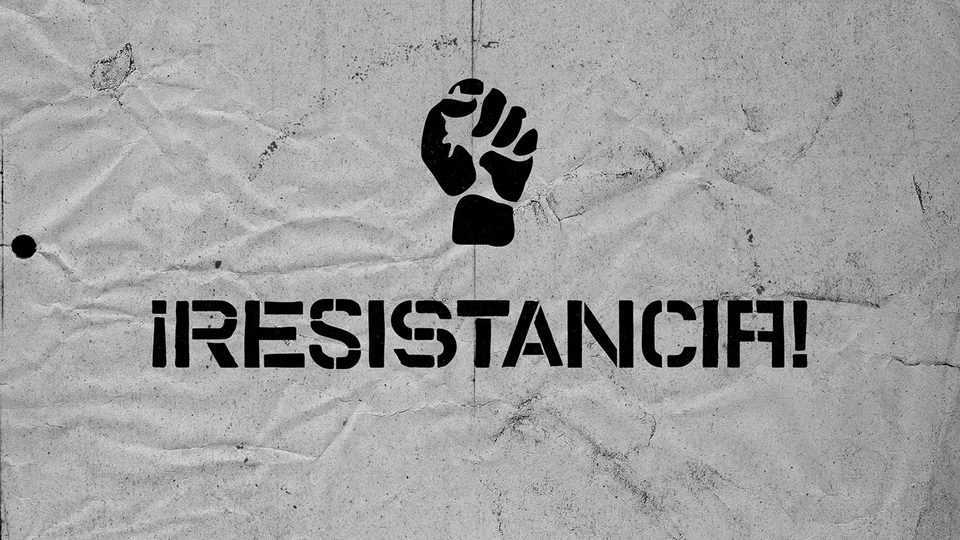
Download Refuse font, a bold and strong display typeface inspired by the challenges and contradictions of our times. Refuse can and should be used as a matrix for large size stencils – preferably as a resistance tool.
Designer: Rafael Nascimento